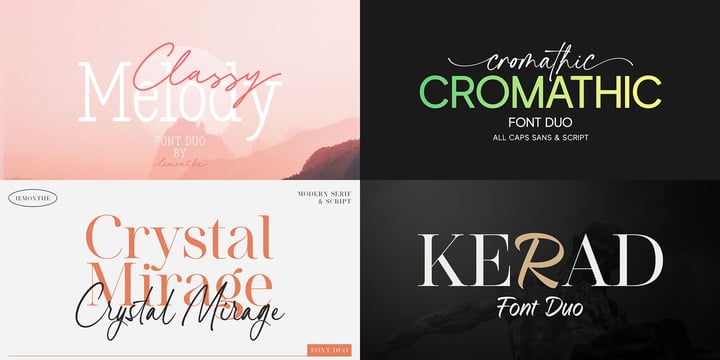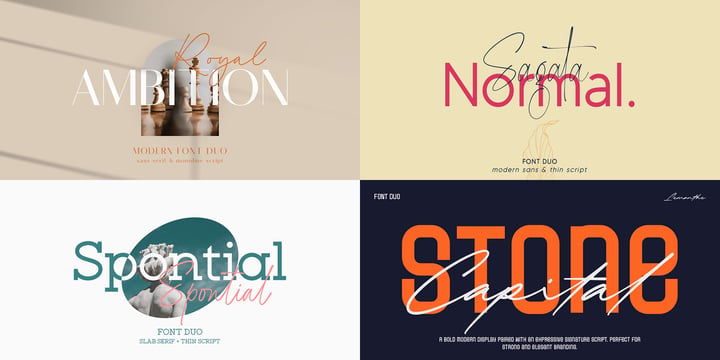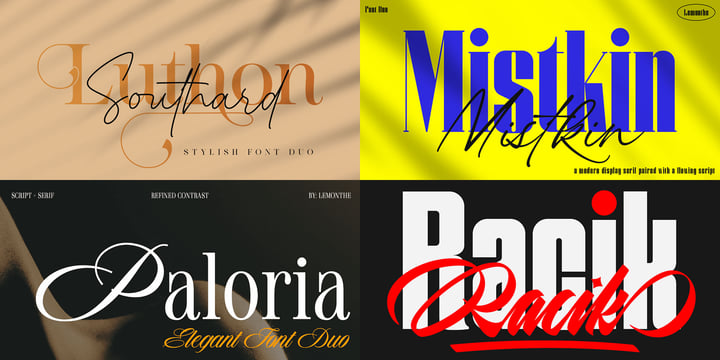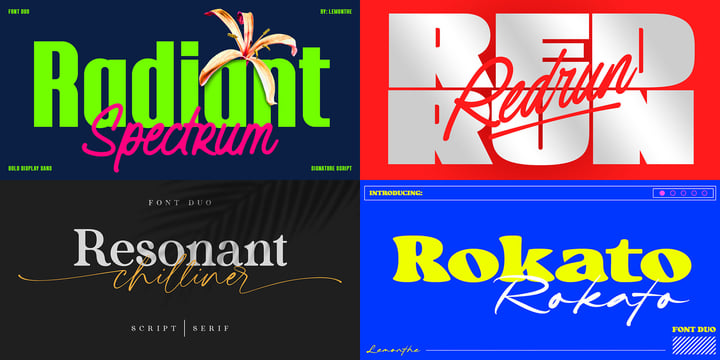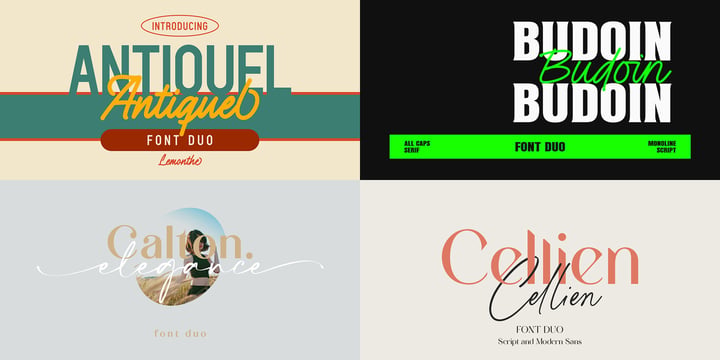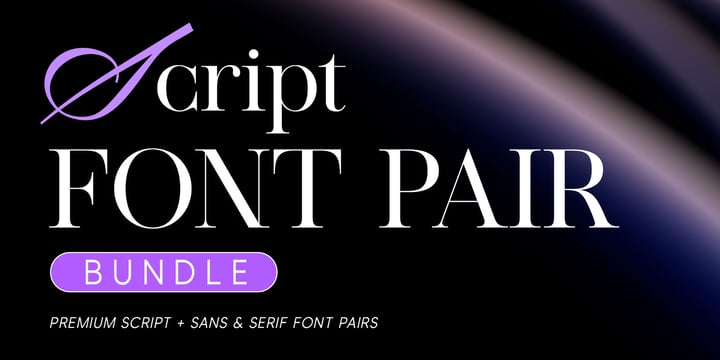
Script Font Pair Bundle
Script Font Pair Bundle is a premium collection of carefully crafted font duos featuring elegant script fonts paired with complementary serif and sans serif typefaces. Designed to bring harmony, versatility, and sophistication to your projects, each pairing helps you create beautiful typography with ease for branding, logos, wedding stationery, packaging, editorial layouts, social media, invitations, websites, and more. Whether you're creating a timeless identity or a modern visual concept, this collection offers professionally matched font combinations that save time while delivering polished and memorable results.